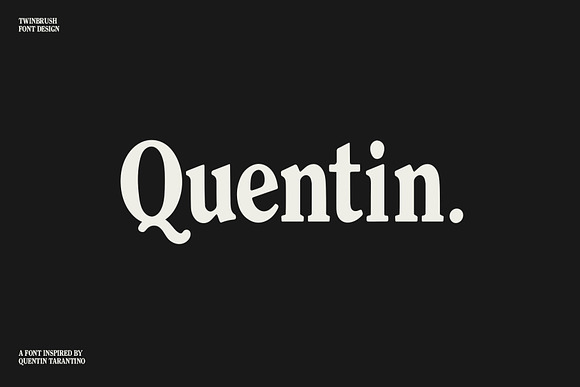
Quentin Font
Quentin Font is perfect for sophisticated business branding, executive presentation materials, professional service marketing, corporate legal documentation, financial institution identities, high-end consulting firms, prestigious law office signage, and elegant business communications. This distinguished typeface excels in applications where professional authority and refined sophistication are essential for creating trustworthy and credible brand experiences that command respect in corporate environments.
What makes Quentin Font truly exciting is its impeccable embodiment of executive presence and professional distinction that captures the essence of boardroom sophistication and business leadership excellence. The font features refined letterforms with classical proportions and authoritative character details that mirror the confidence of successful executives and the credibility of established institutions. Its professional personality and distinguished character create an immediate sense of competence and business acumen that resonates with audiences seeking reliable professional services and executive-level expertise. The typeface's corporate heritage and prestigious appeal make it perfect for brands wanting to convey authority, trustworthiness, and connection to the highest standards of business professionalism and institutional credibility.
The Quentin Font family includes multiple weights from Light to Bold, complemented by elegant italic versions that enhance its professional versatility. The font offers comprehensive character sets with business symbols, professional ligatures, and corporate styling details that enhance its authoritative aesthetic. Additional graphic elements including executive motifs, business patterns, professional ornaments, and institutional flourishes provide designers with complete branding tools rooted in corporate culture and business excellence traditions.